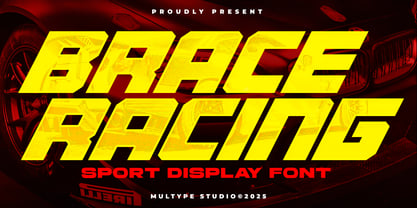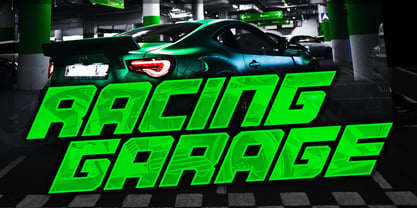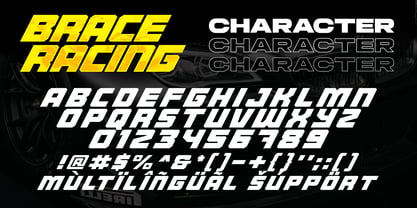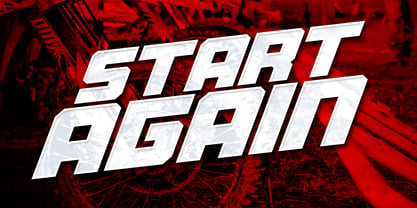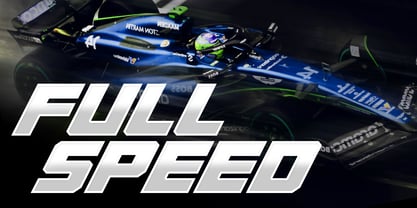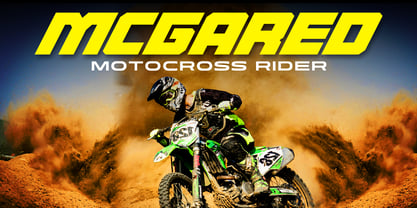
Brace Racing
La famille de polices Brace Racing a été conçue par Mulia Yanto et publiée par Multype Studio. Brace Racing contient 1 styles. En savoir plus sur cette famille
Brace Racing Font is a font with a racing theme, bold, big, strong and fast. This font still looks very fast and powerful ,even without the corner cut effect. Because with consistent bold and slanted shapes. Brace Racing Font is perfect for racing product logos, racing game covers, sporting events, automotive posters, automotive magazine covers, branding, product designs, labels and other creative projects. What’s Included : All Caps Number Punctuation Works on PC / Mac Simple installations Accessible in the Adobe Illustrator, Adobe Photoshop, Adobe InDesign, even work on Microsoft Word PUA Encoded Characters, Fully accessible without additional design software. Multilingual support Thank you for your purchase! Hope you enjoy with our font!
Concepteurs: Mulia Yanto
Fonderie: Multype Studio